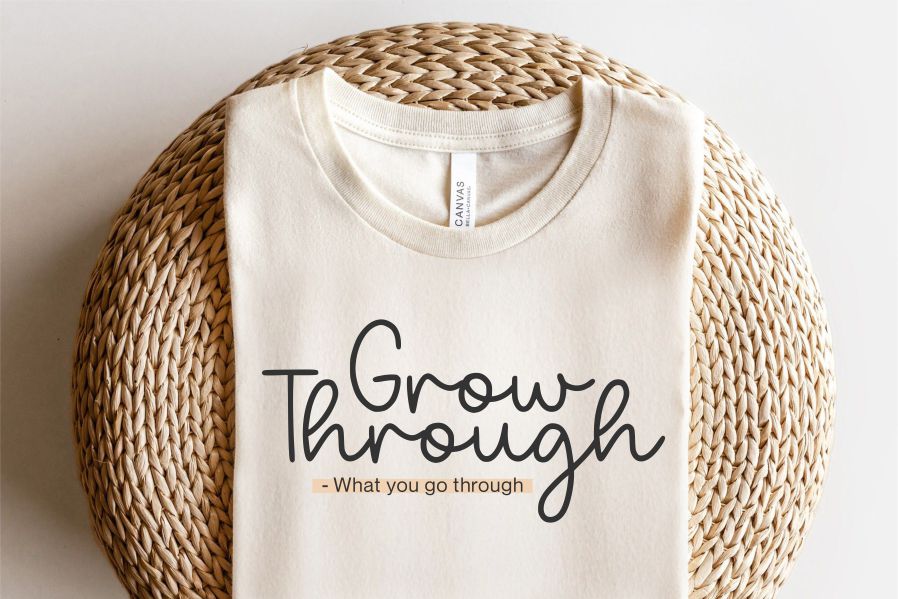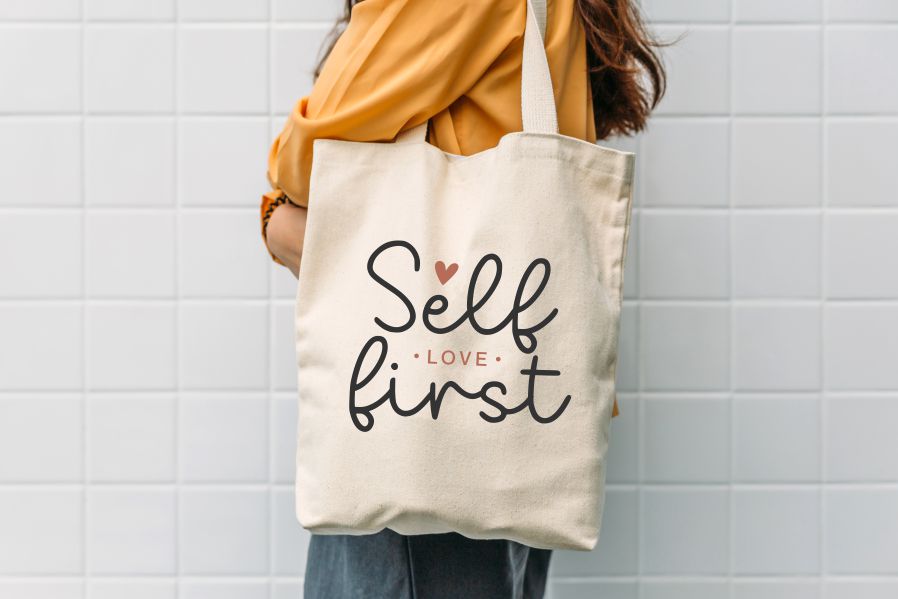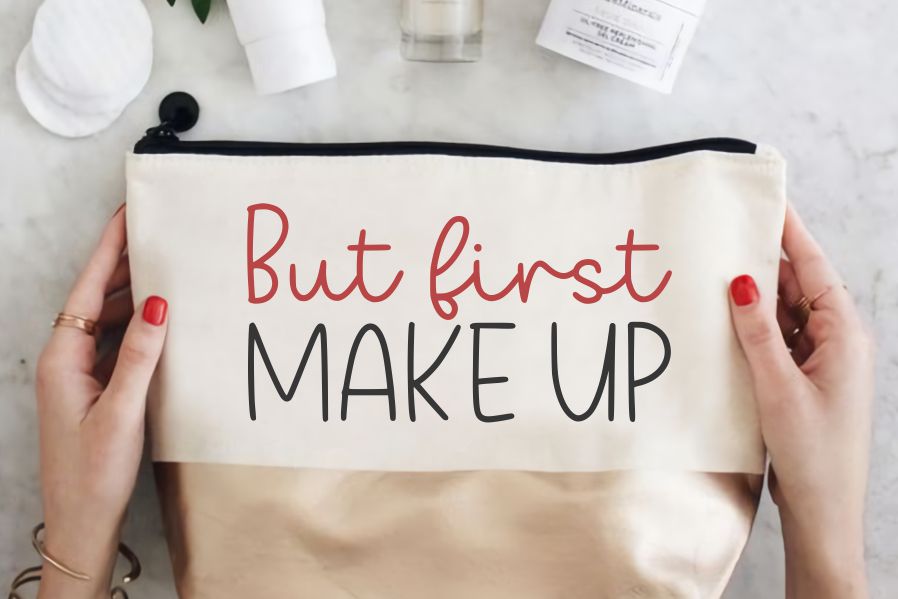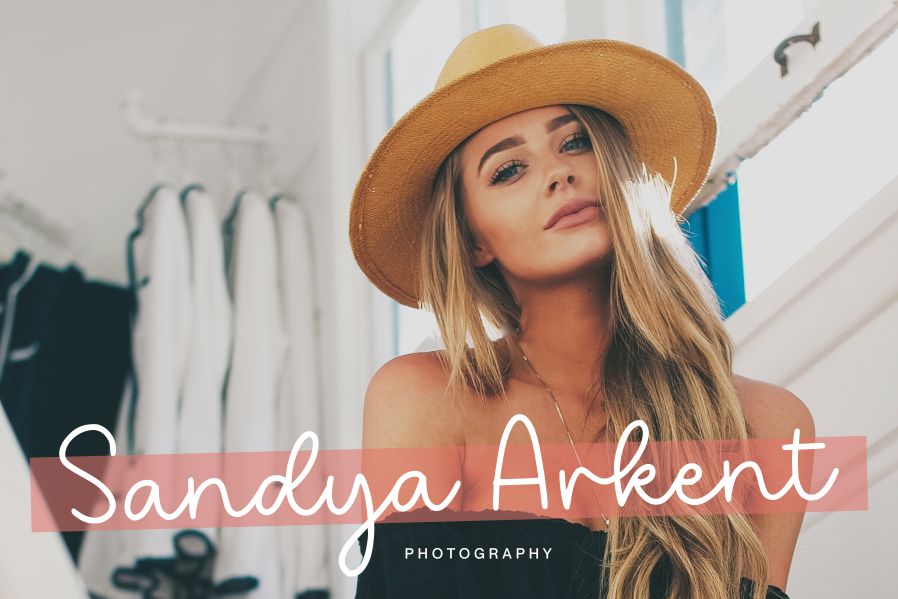
Mellorine Font
Mellorine Handwritten Font
This is a Monoline Script Font. Mellorine is perfect for product packaging, branding project, megazine, social media, wedding, or just used to express words above the background.